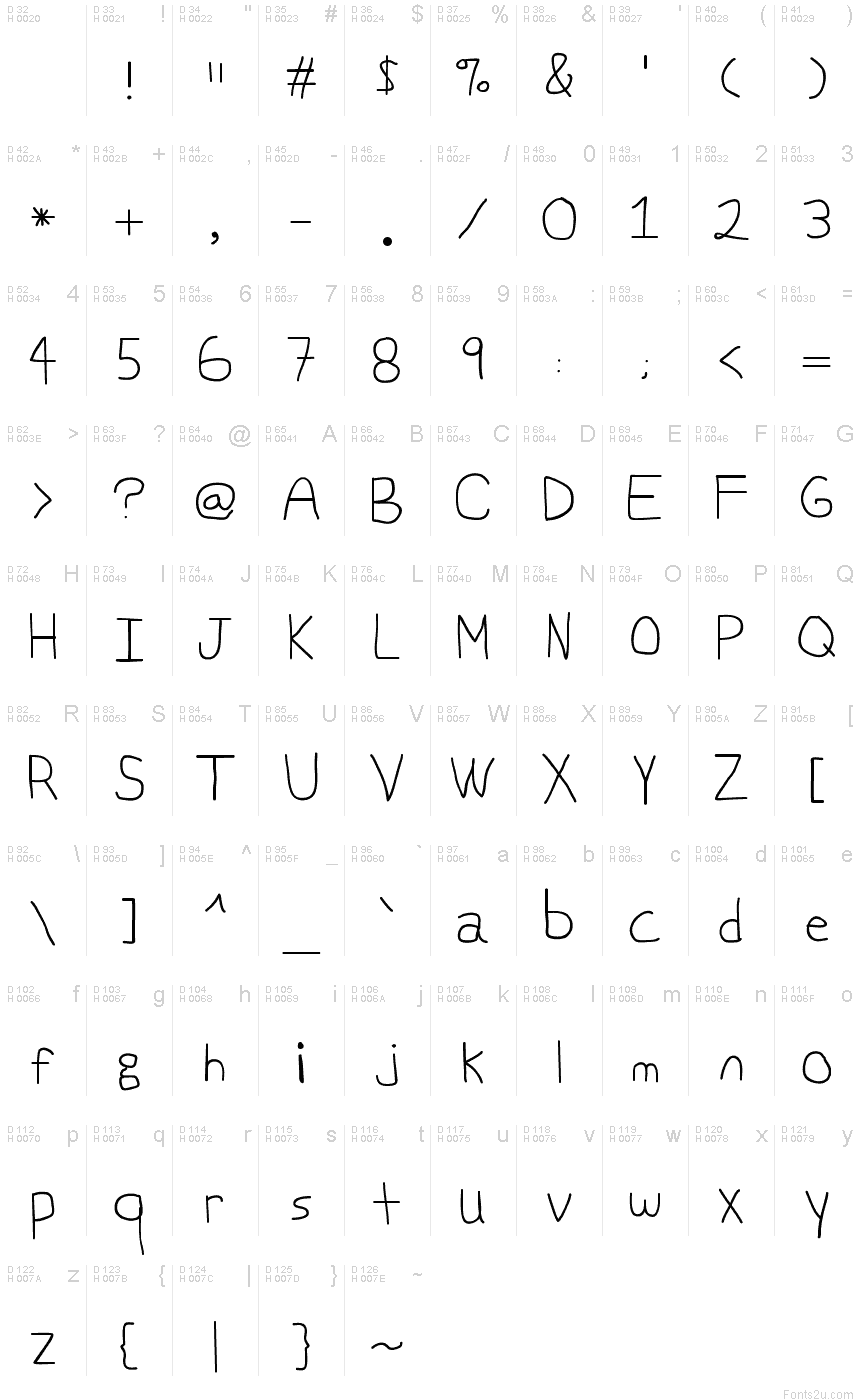
Swabby by Brian Sullivan is a free monoline handwritten font with an easy, informal manner. Its slender strokes move through rounded letters, with slight shifts in width and alignment that preserve the hand-drawn construction. Tall upright forms give the low, loose lettering a memorable silhouette.
Independent cafes or children's shops could use it for friendly branding and packaging with a personal note. It also suits event posters and playful digital graphics, particularly when the design includes doodles or simple line art. In editorial work, its relaxed shapes could bring warmth to magazine section openers and illustrated feature titles.